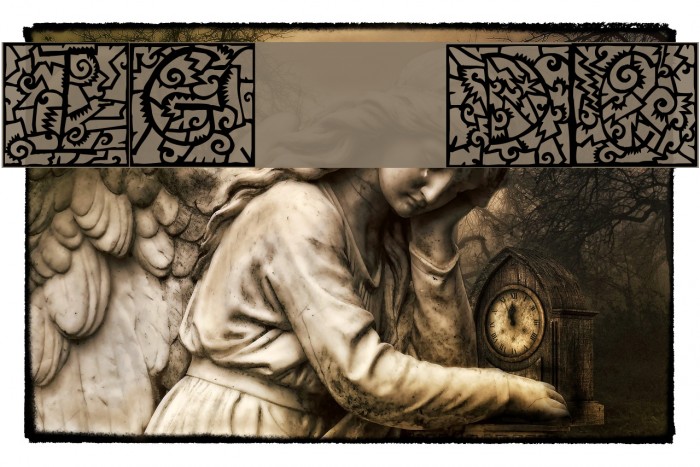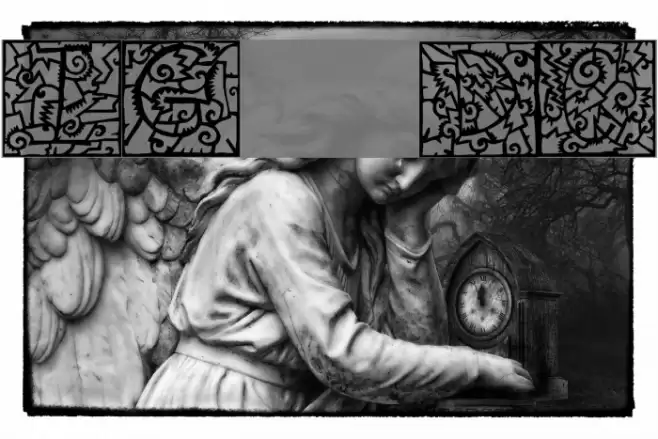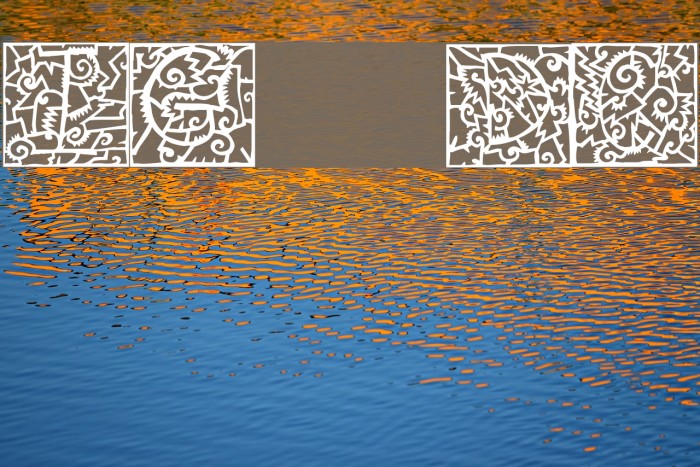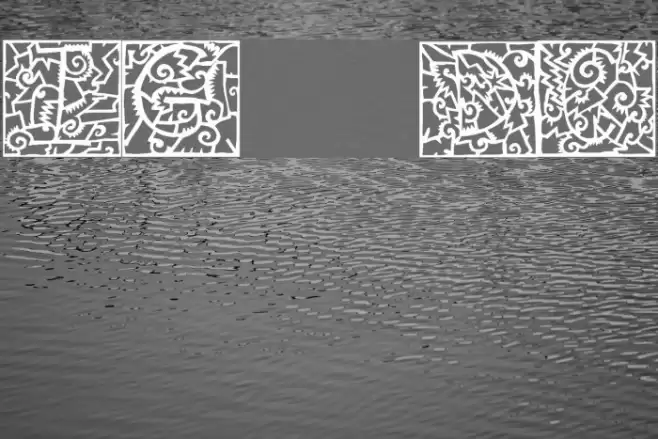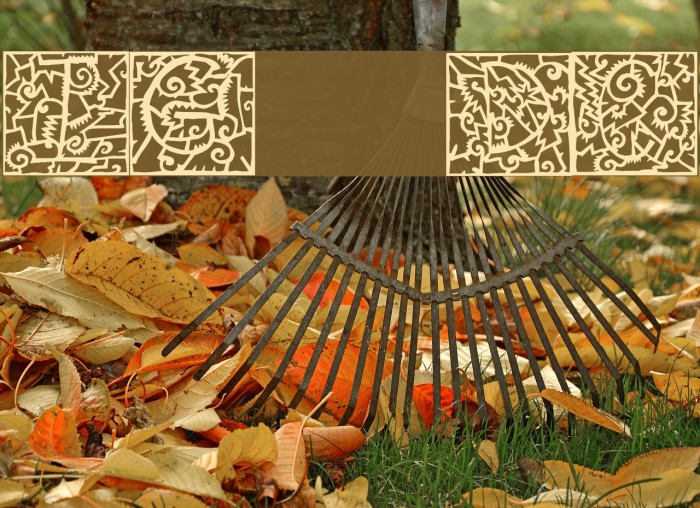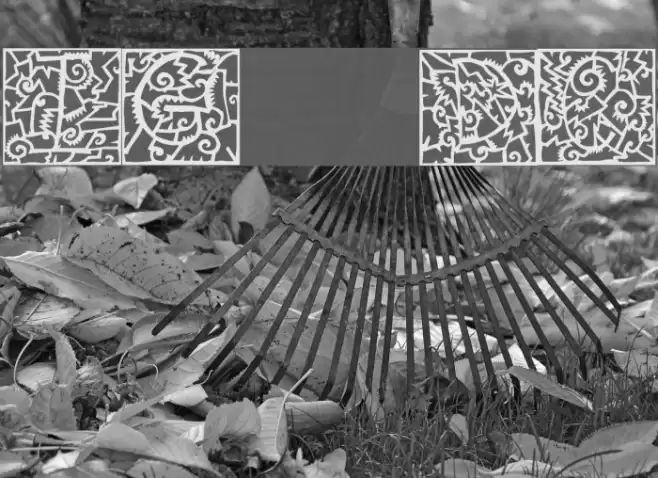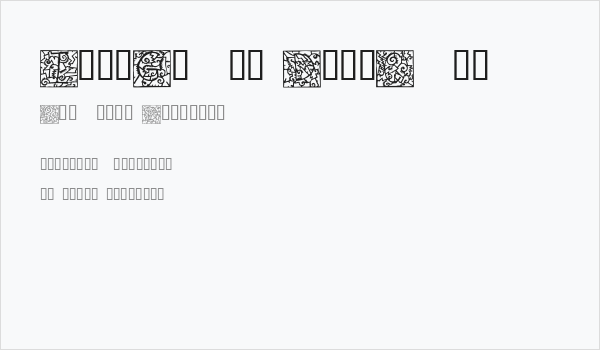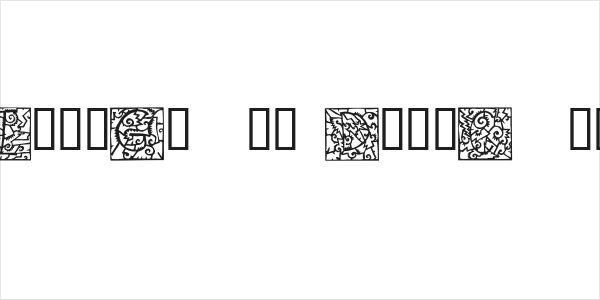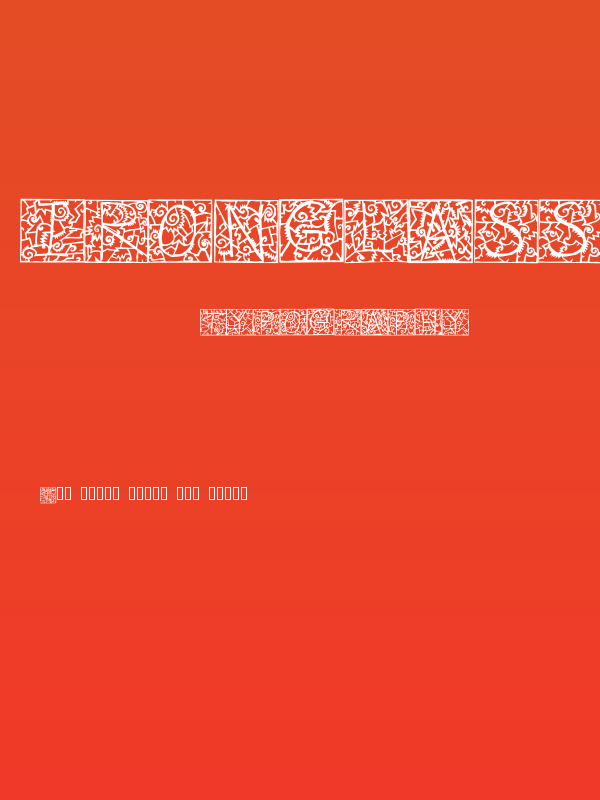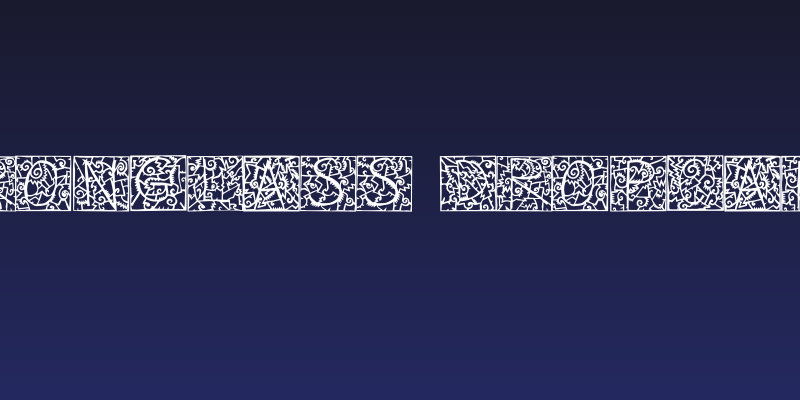
IronGlass DropCaps Font
IronGlass DropCaps Description
This font features an intricate and ornate design, reminiscent of stained glass artwork. Each character is encased in a square, with elaborate swirls and decorative elements filling the space around the letterforms. The style is highly decorative, with a focus on artistic embellishment rather than readability. The characters are uniform in size, creating a cohesive and structured appearance. This font is ideal for projects that require a touch of elegance and artistic flair, such as invitations, posters, or any design that seeks to evoke a sense of historical or artistic richness.
| Proposed Projects | Ideal for invitations, artistic posters, decorative headings, and projects requiring an elegant touch. |